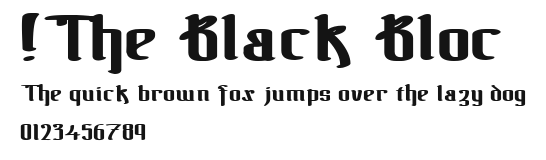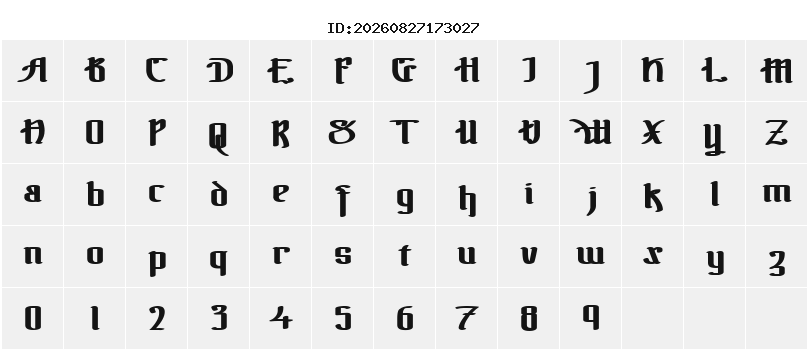
• Font Name: !The Black Bloc
• Designer: Choz Cunningham
• Manufacturer: !Exclamachine Type Foundry
• Description: A contemporary blackletter face.
About !The Black Bloc.ttf